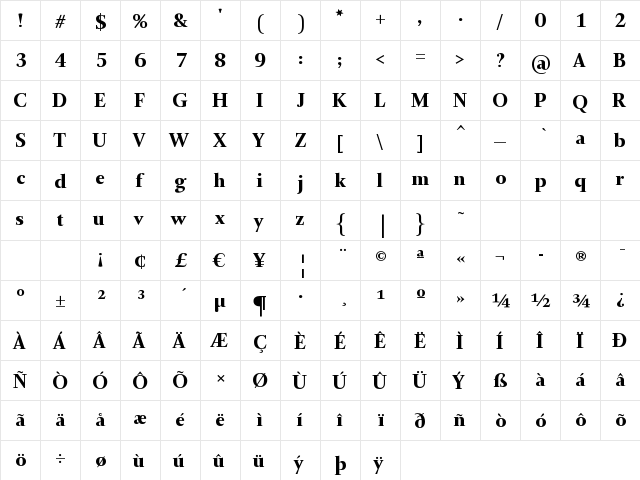
ArnhemFine-Bold Regular
Design Context for ArnhemFine-Bold Typeface
ArnhemFine-Bold takes a measured approach to typography — its balanced proportions and neutral character make it a reliable workhorse for both digital and print work. The heavy weight commands attention and anchors typographic hierarchies.